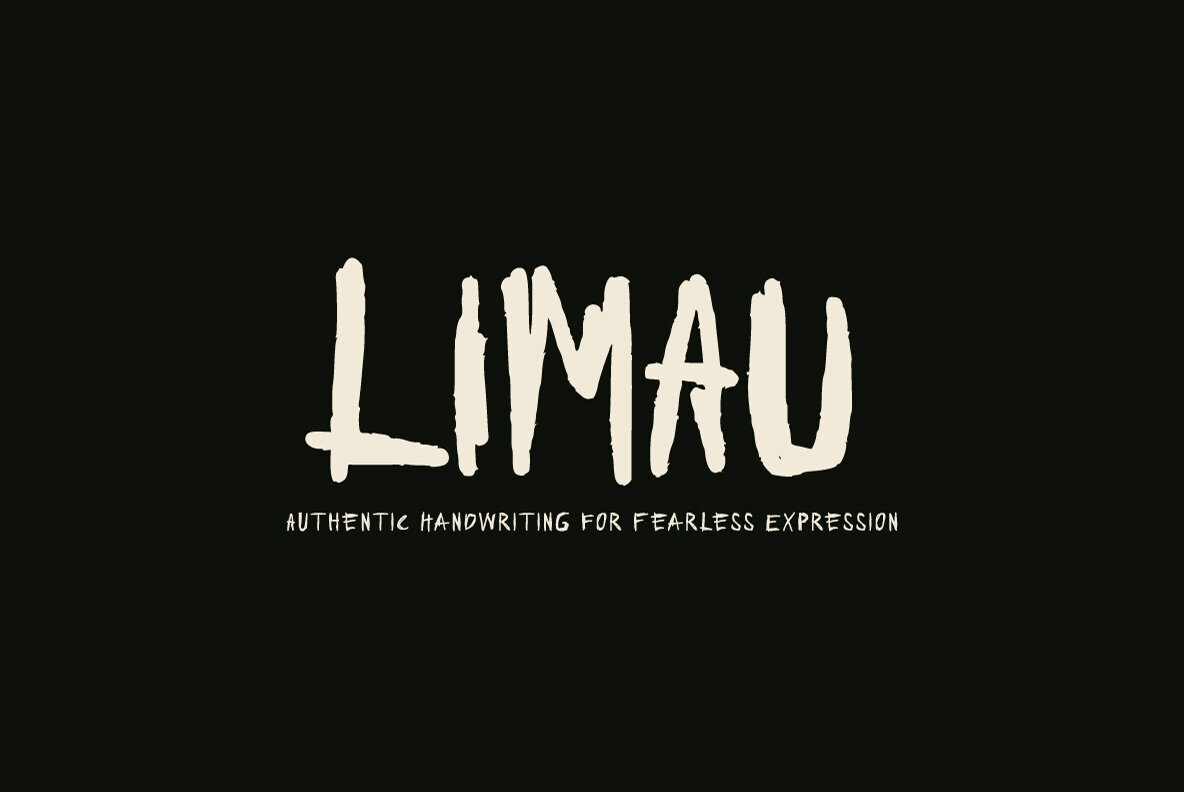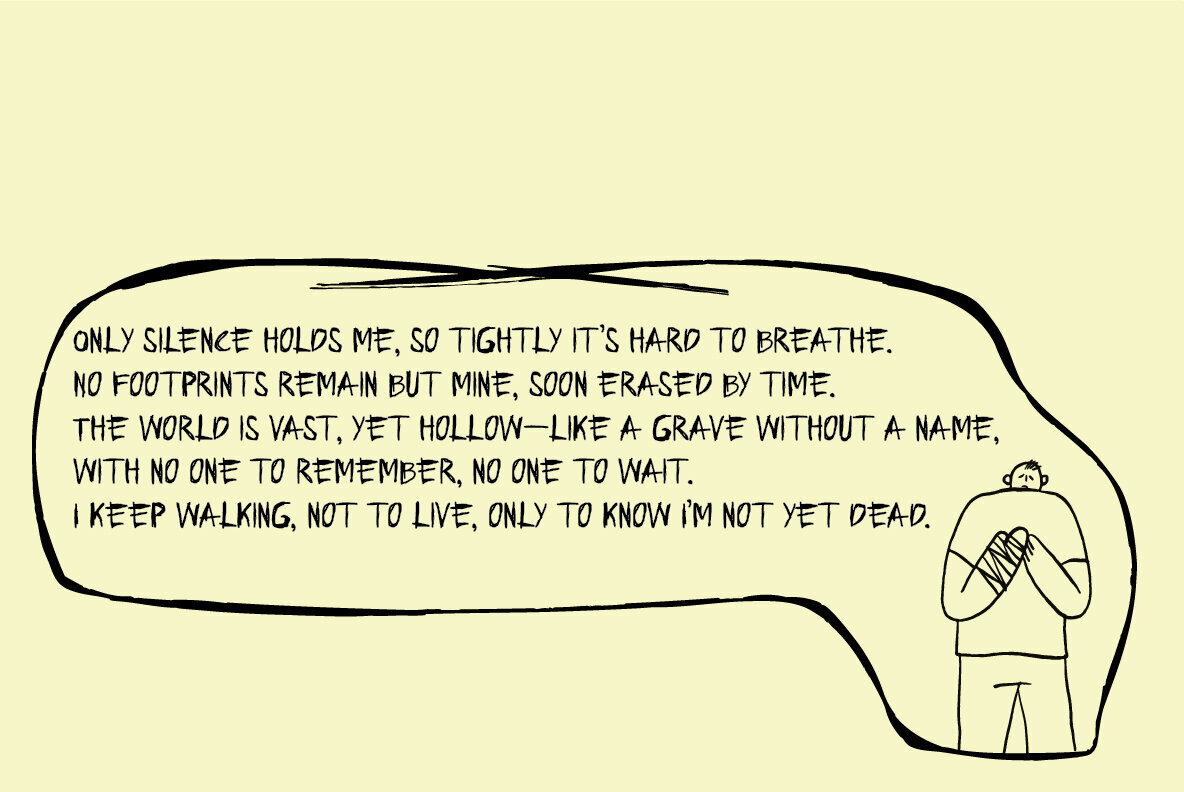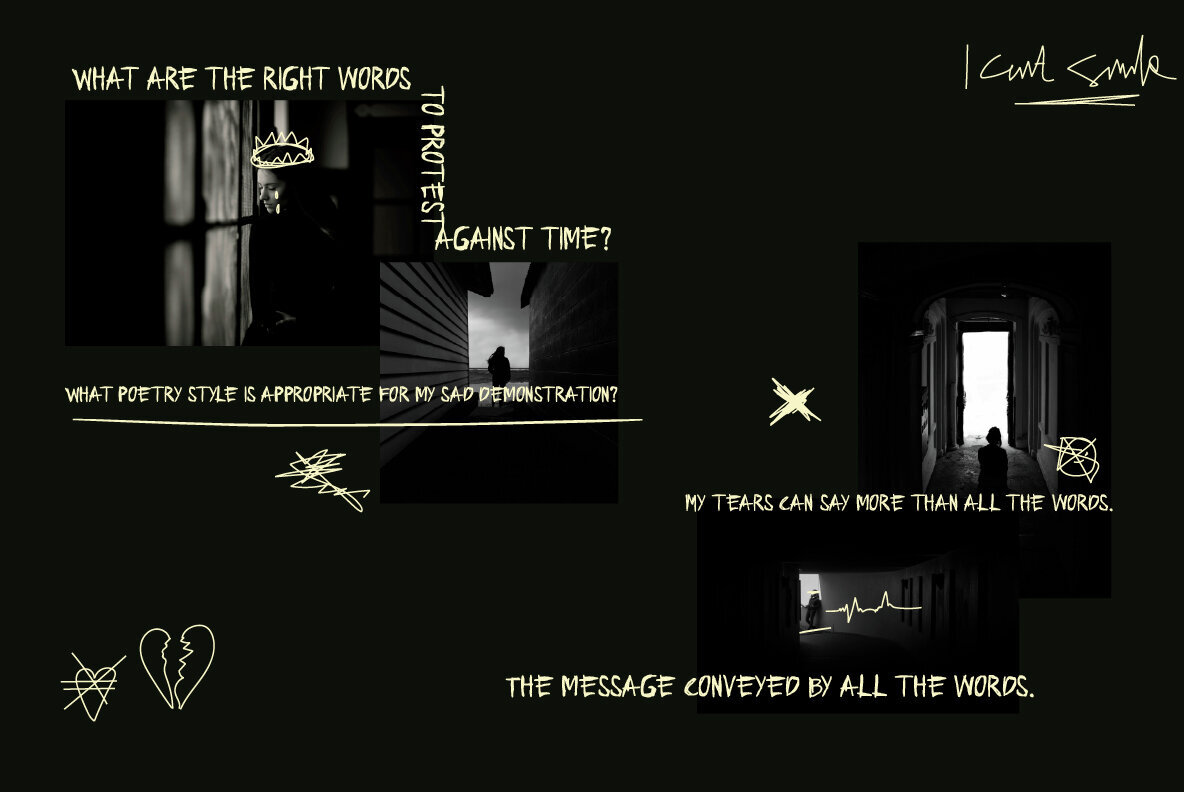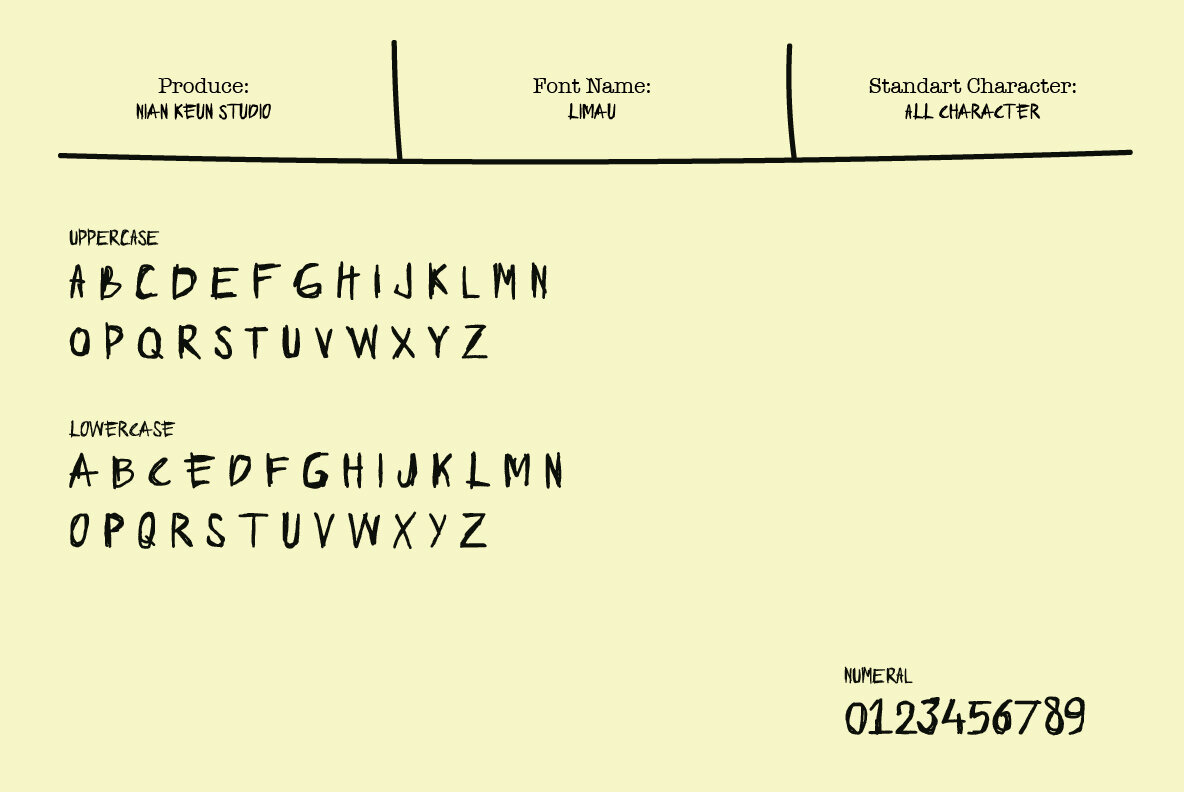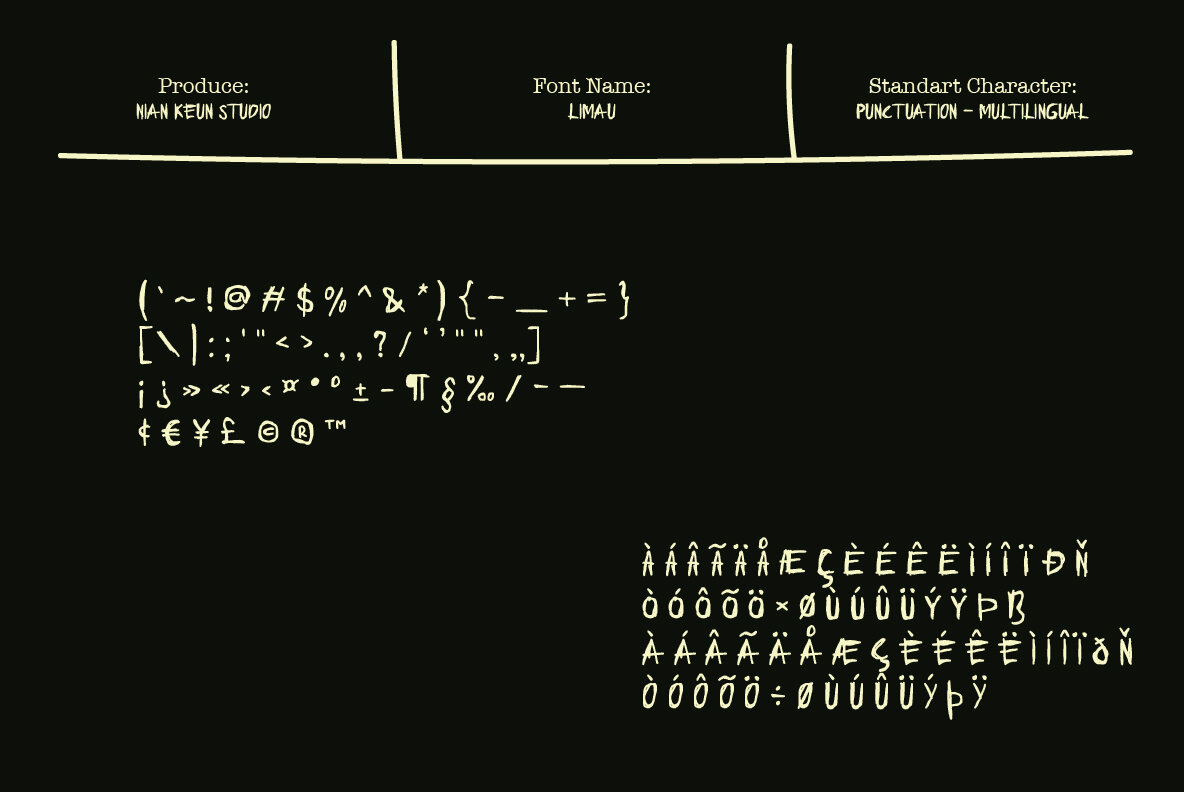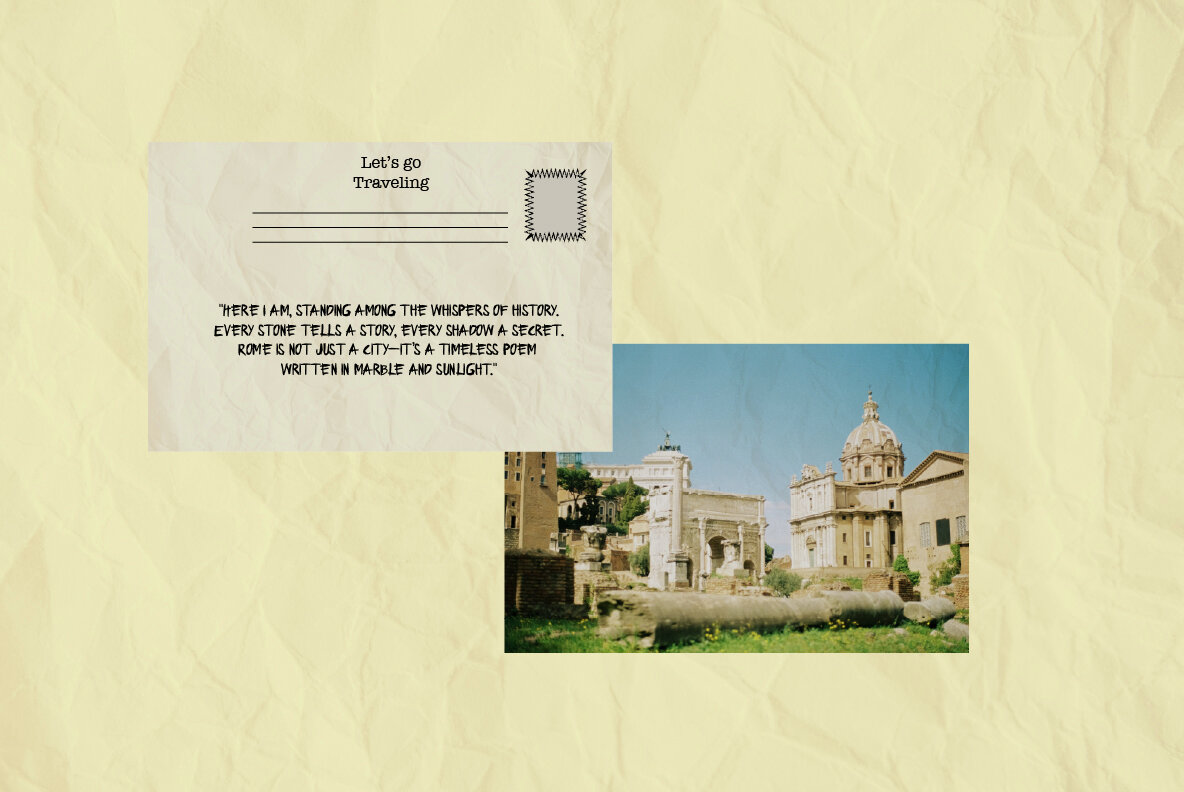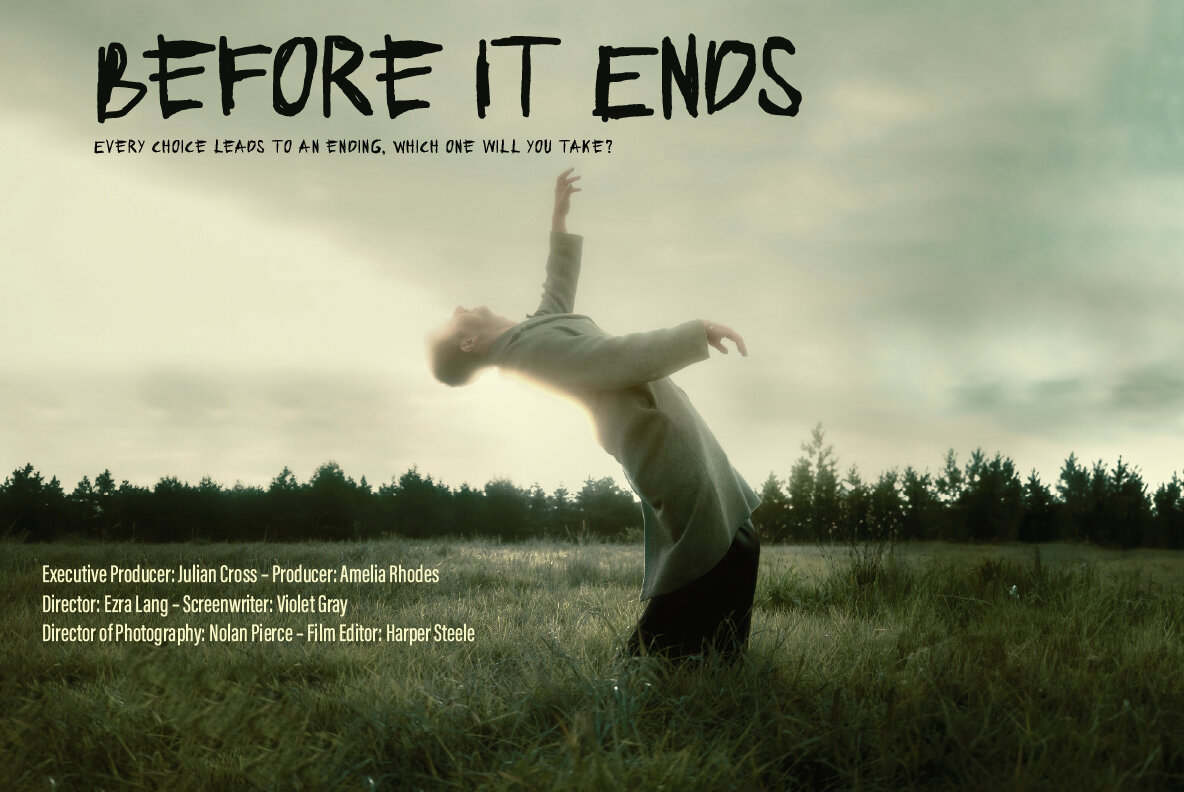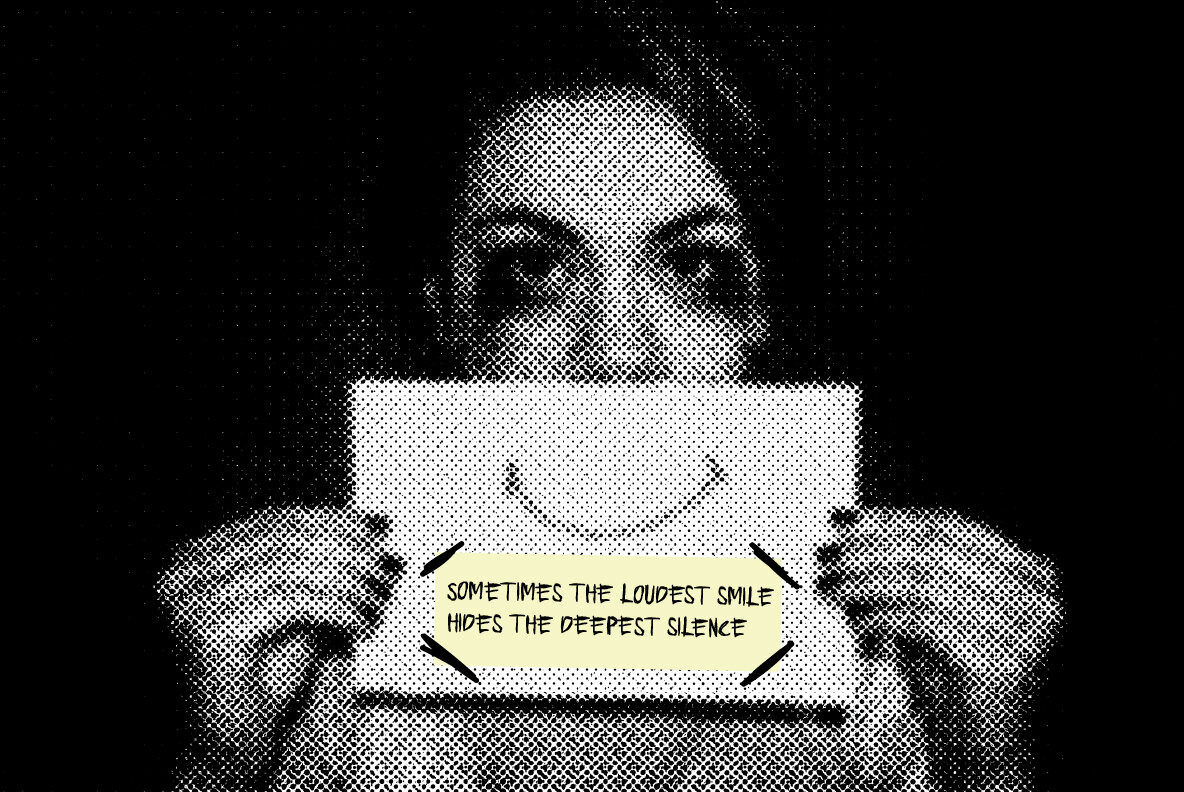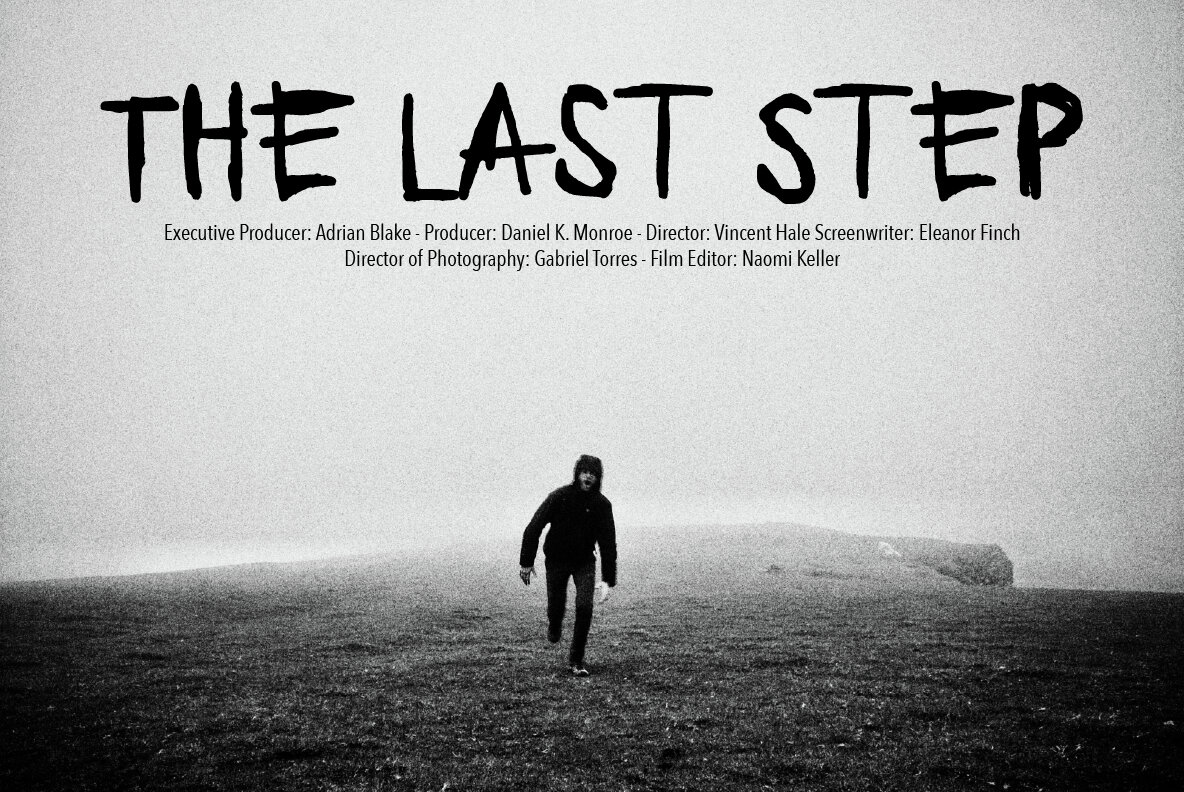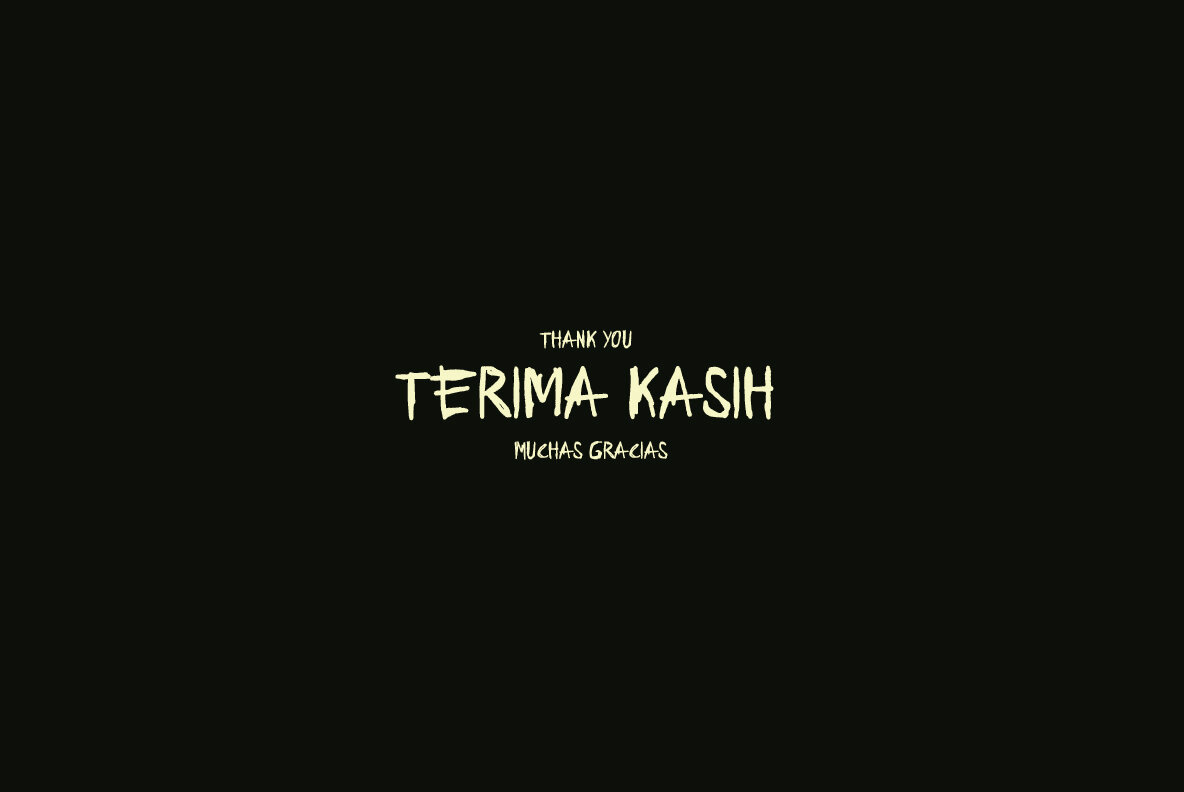
Limau Font
Limau
Limau is a bold, handwritten font that embodies raw and expressive individuality. Its uneven strokes and dynamic character shapes create a visual rebellion, with each line crafted like a manifesto on paper. This typeface is loud, rough, and unapologetically authentic, perfect for those who speak out through design. Whether you're working on posters, zines, apparel, or album art, Limau injects intensity and soul into every message.Limau: A Raw Expression of Individuality